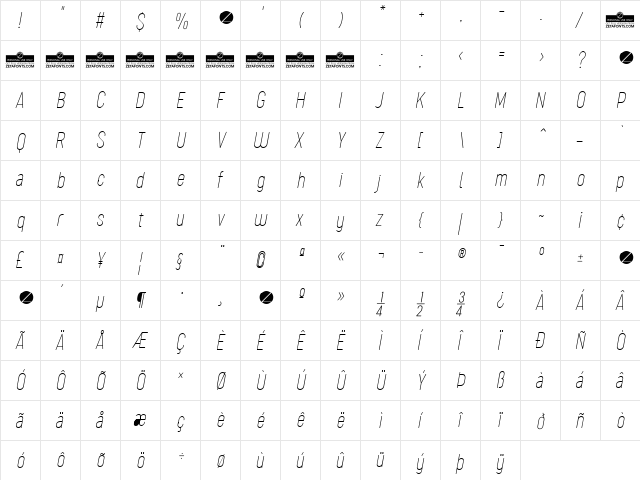
Sugo Pro Classic Trial Thin Italic Font Preview
| Foundry | Zetafonts |
| Designer | Cosimo Lorenzo Pancini |
Design Context for Sugo Pro Classic Trial Typeface
Sugo Pro Classic Trial has the warm character of retro typography — evoking diners, record sleeves, and the golden age of print advertising. The slanted form adds forward momentum and visual energy. Its slender proportions lend an understated elegance to any composition.
Ideal for diner signage, record shop branding, 70s/80s-themed projects, and heritage product labels.
Font Pairing: Combine Sugo Pro Classic Trial with a simple slab or neutral sans — period-accurate companions reinforce the vintage feel without competing for attention.
Pro Tip: Lean into Sugo Pro Classic Trial's period character by pairing it with aged paper textures, muted colour palettes, and vintage illustration styles.